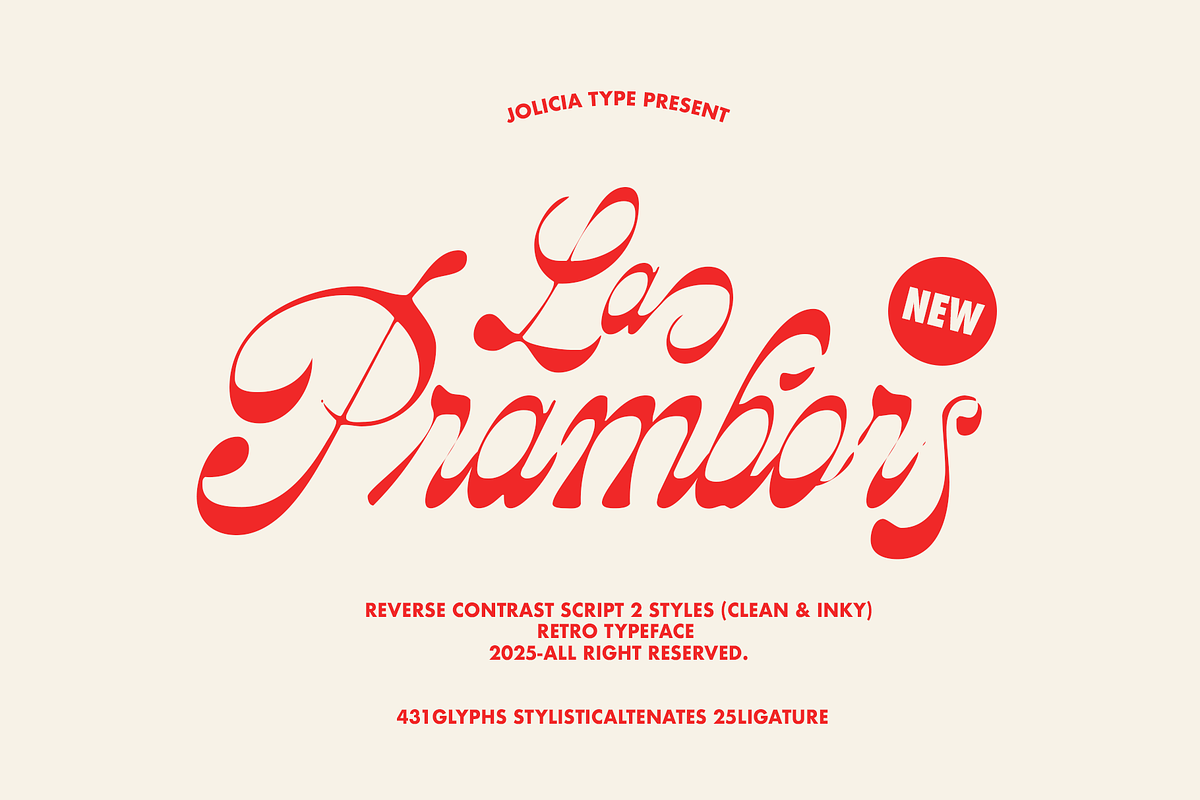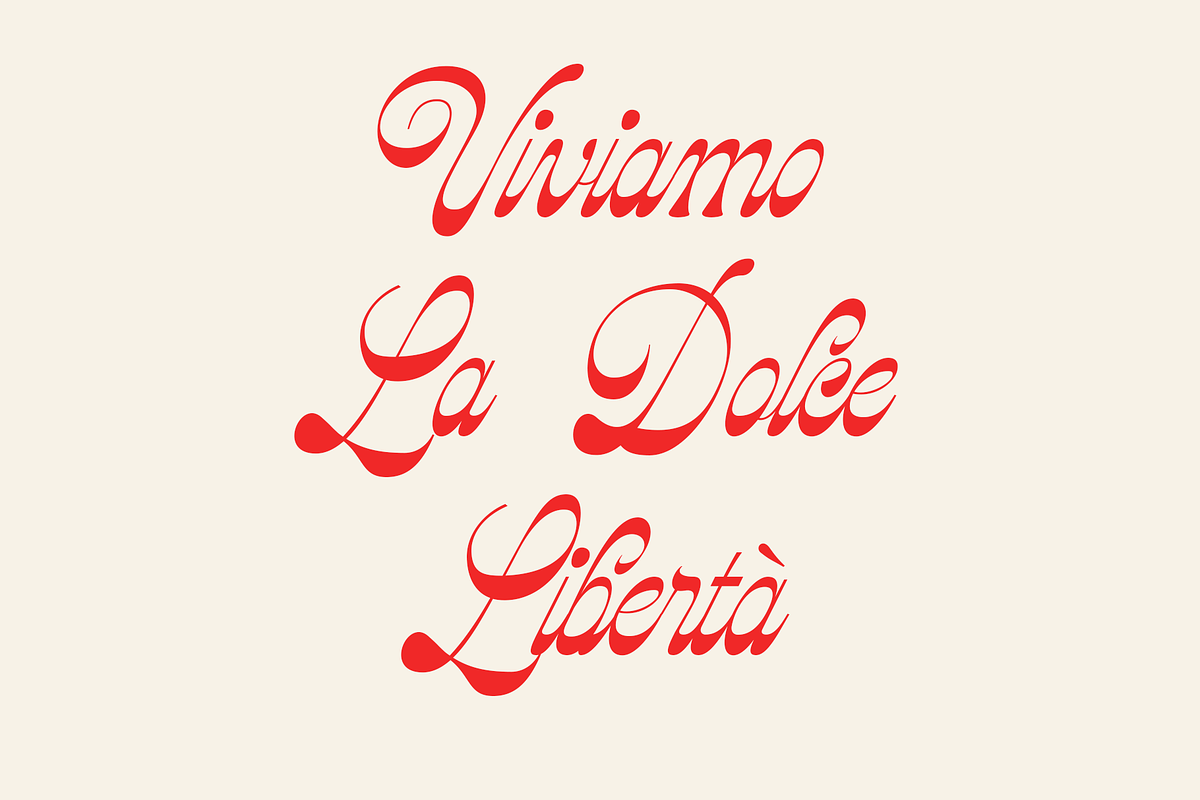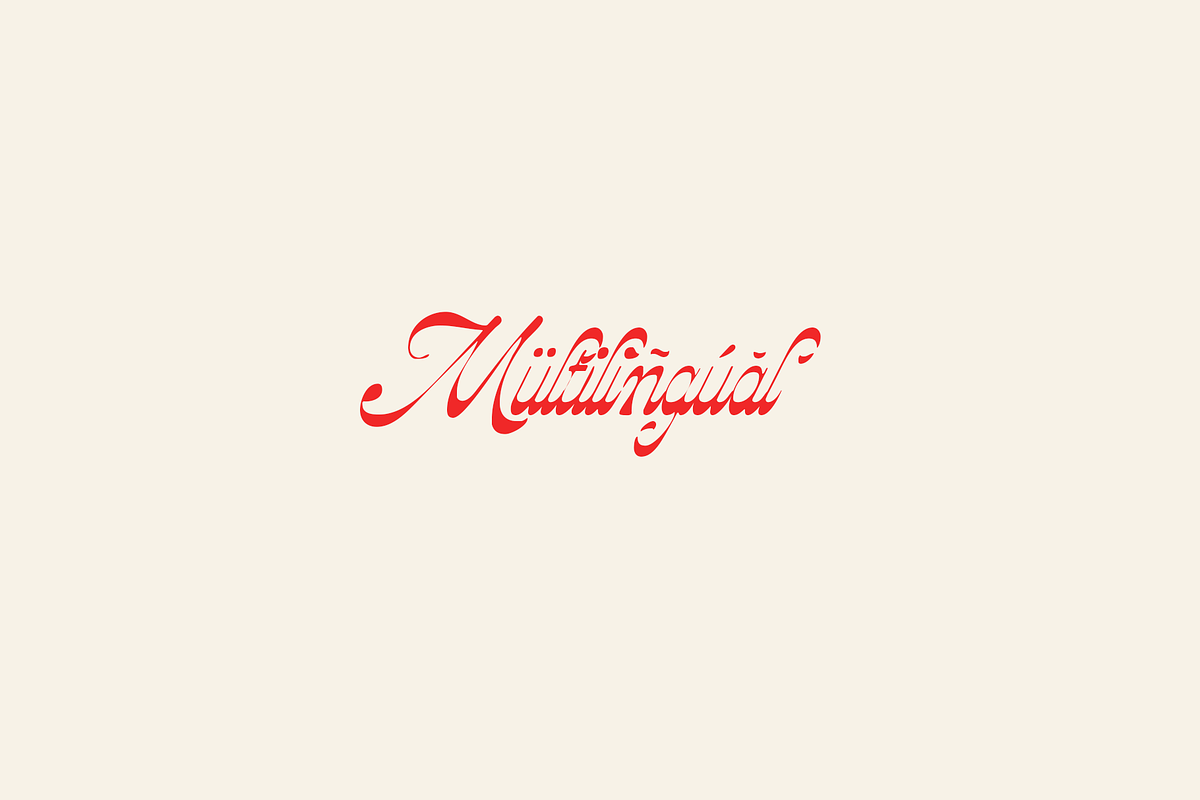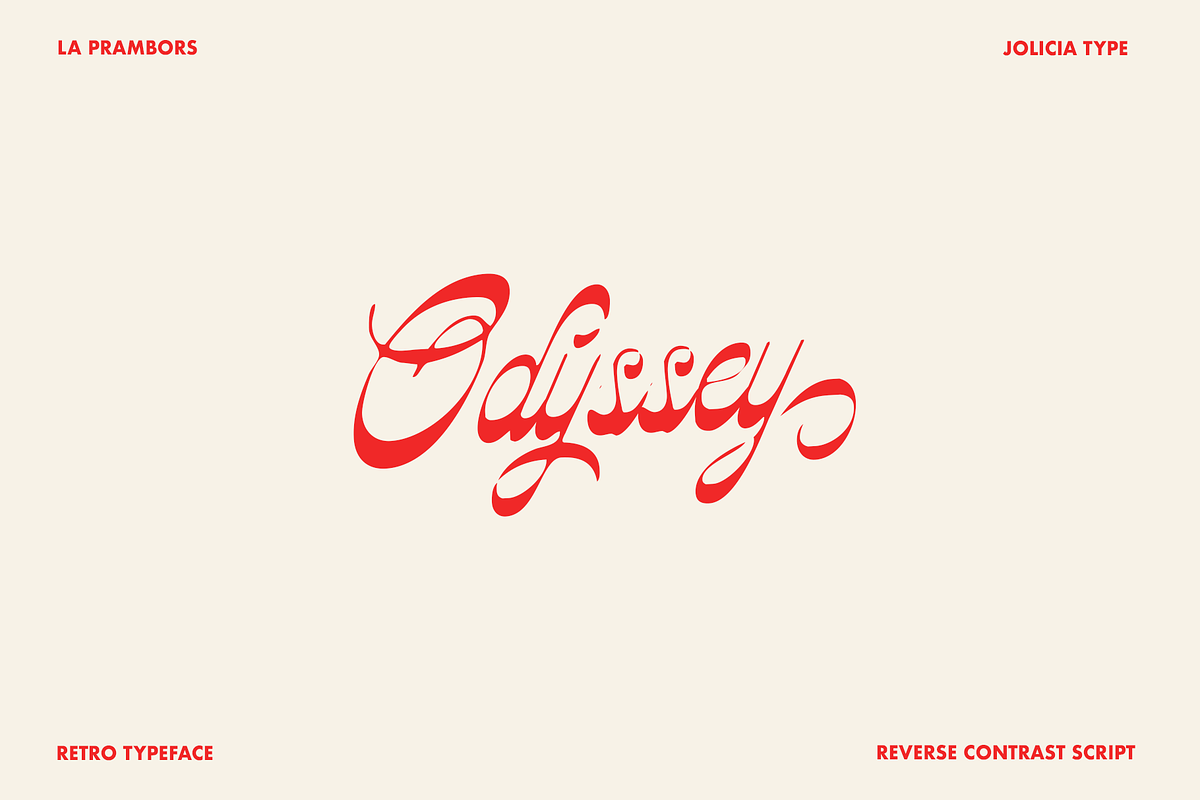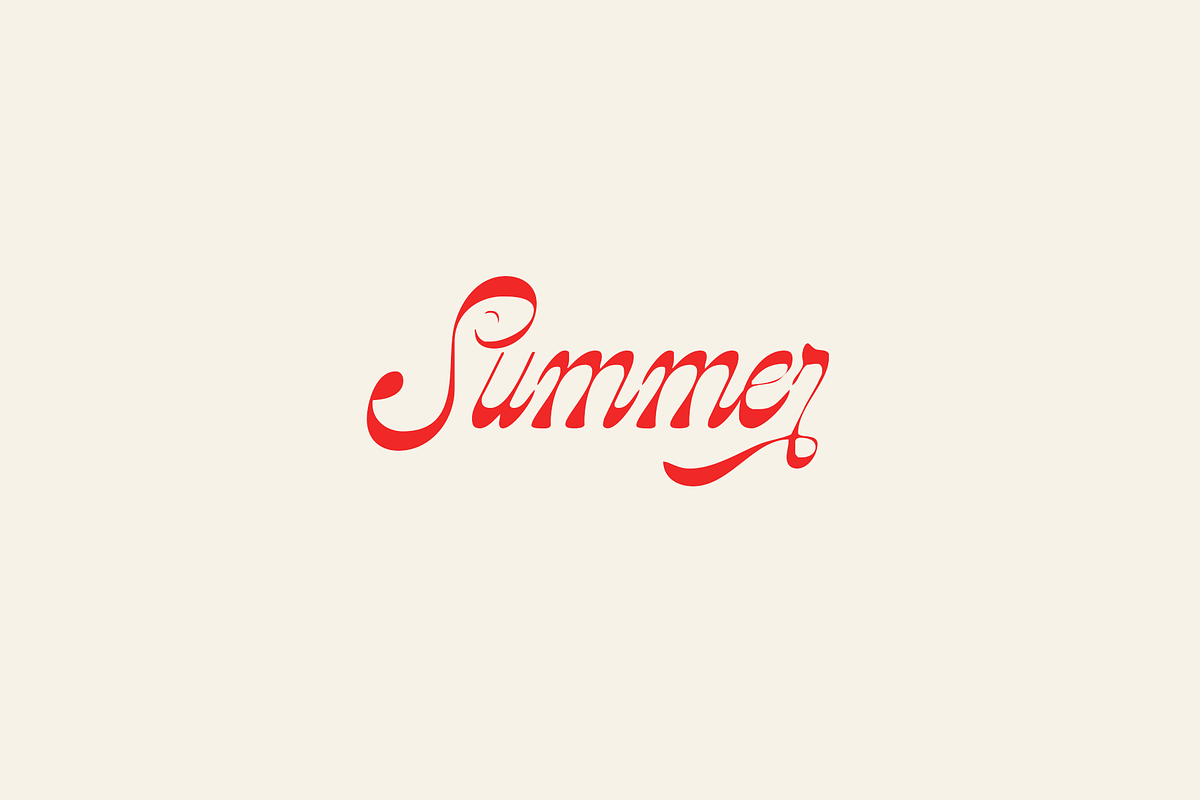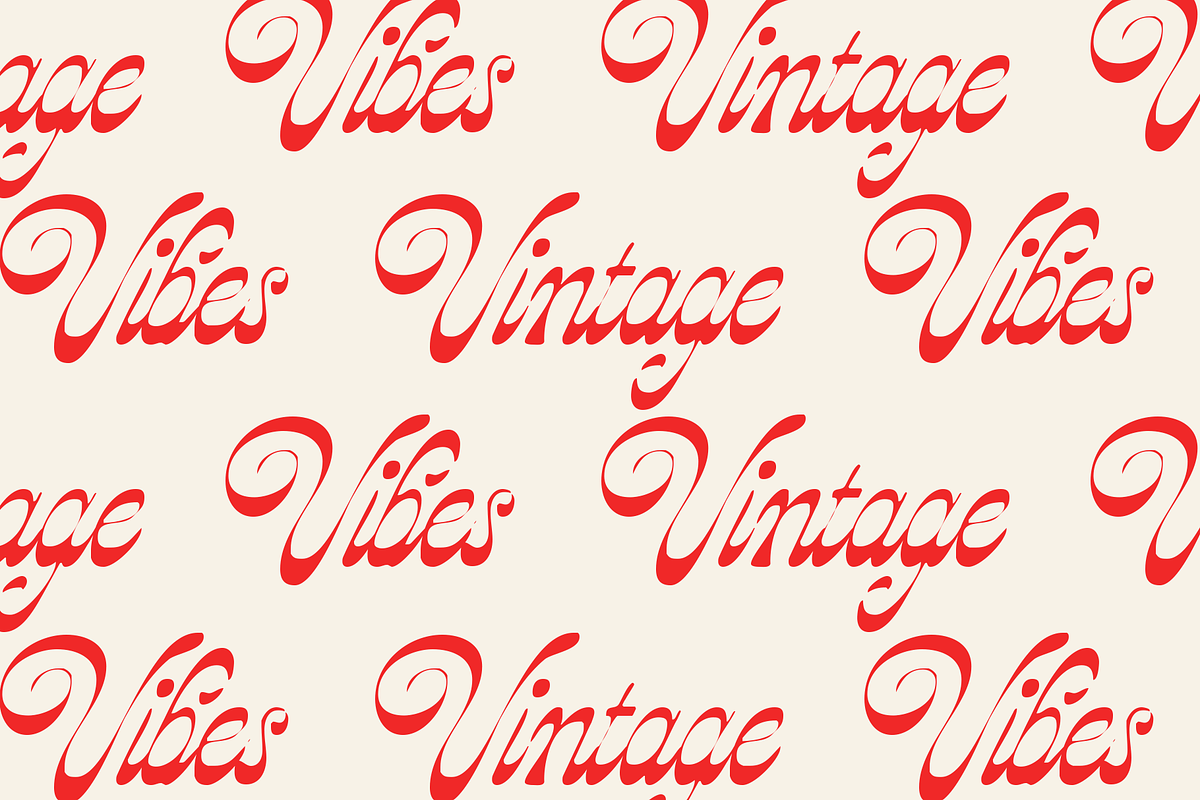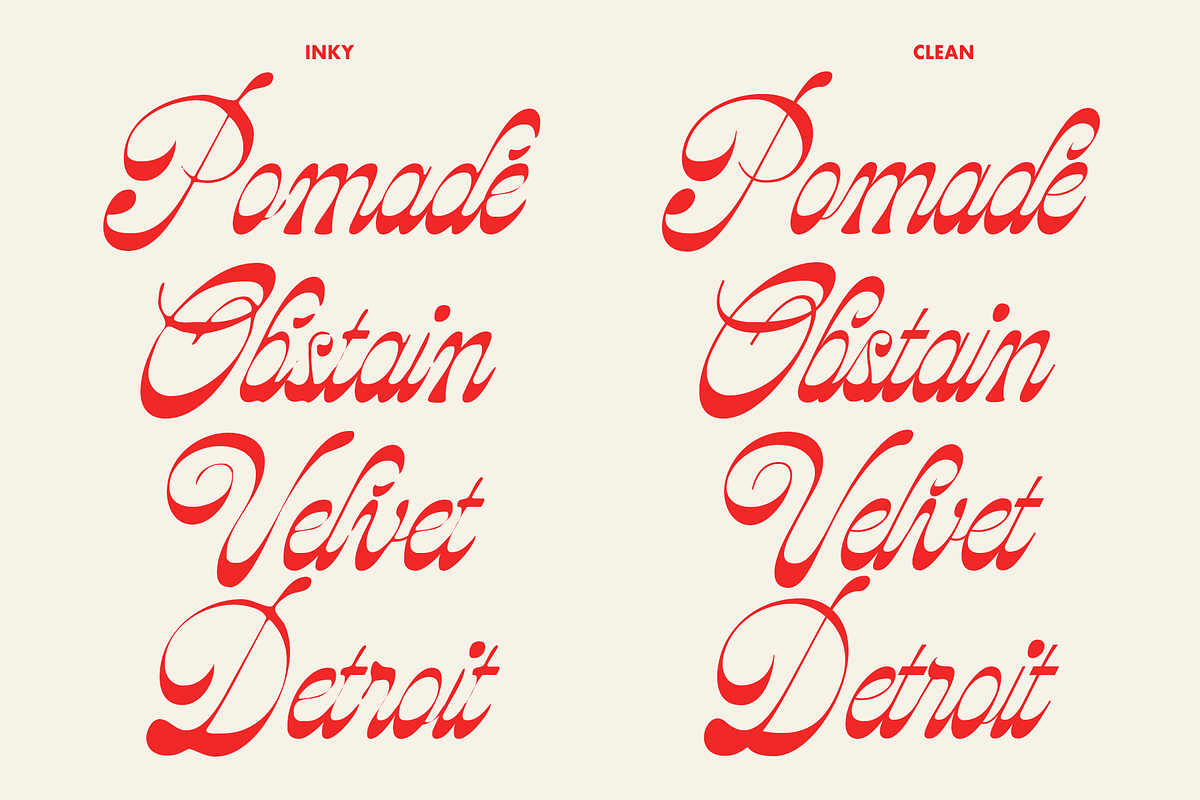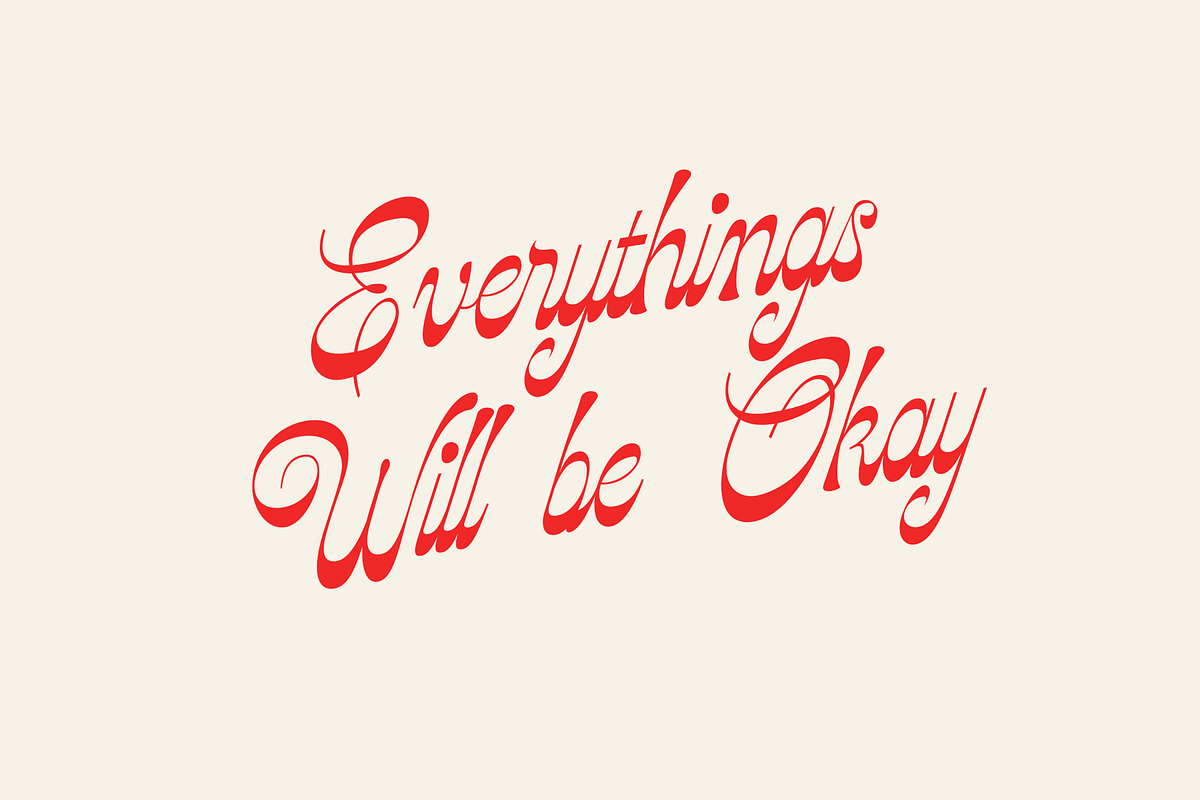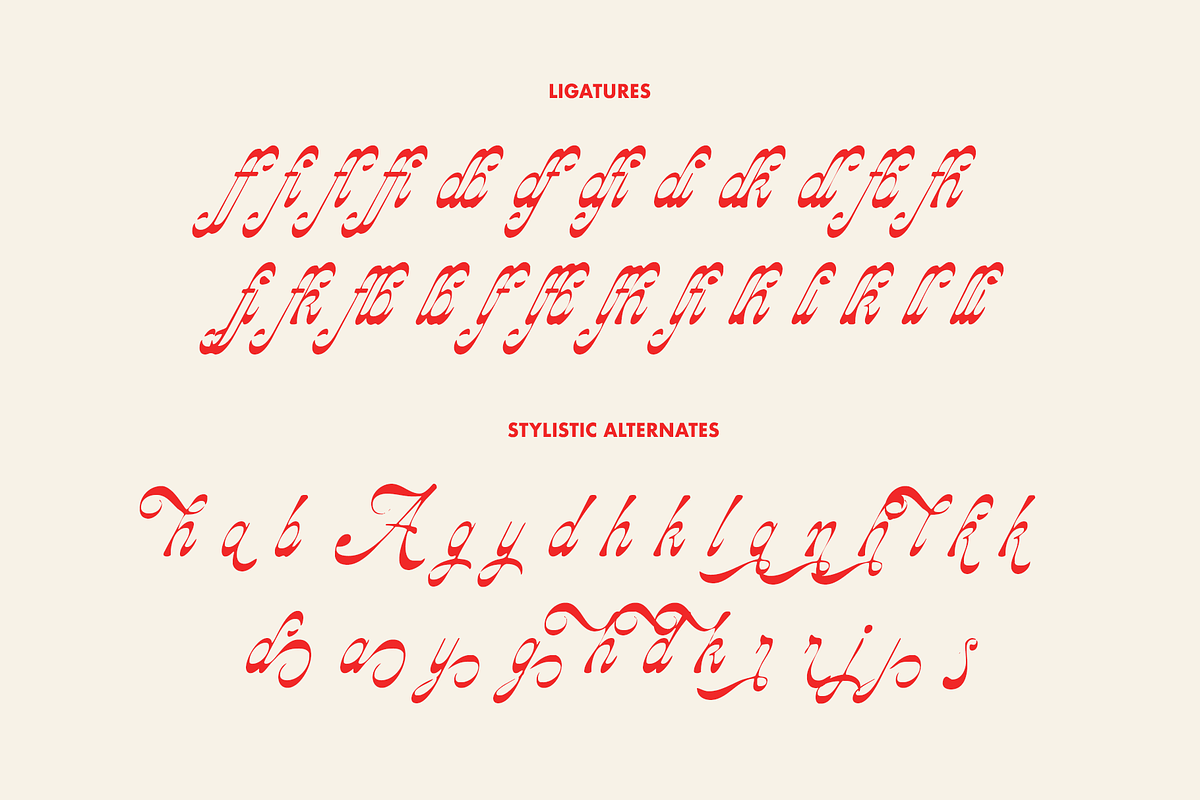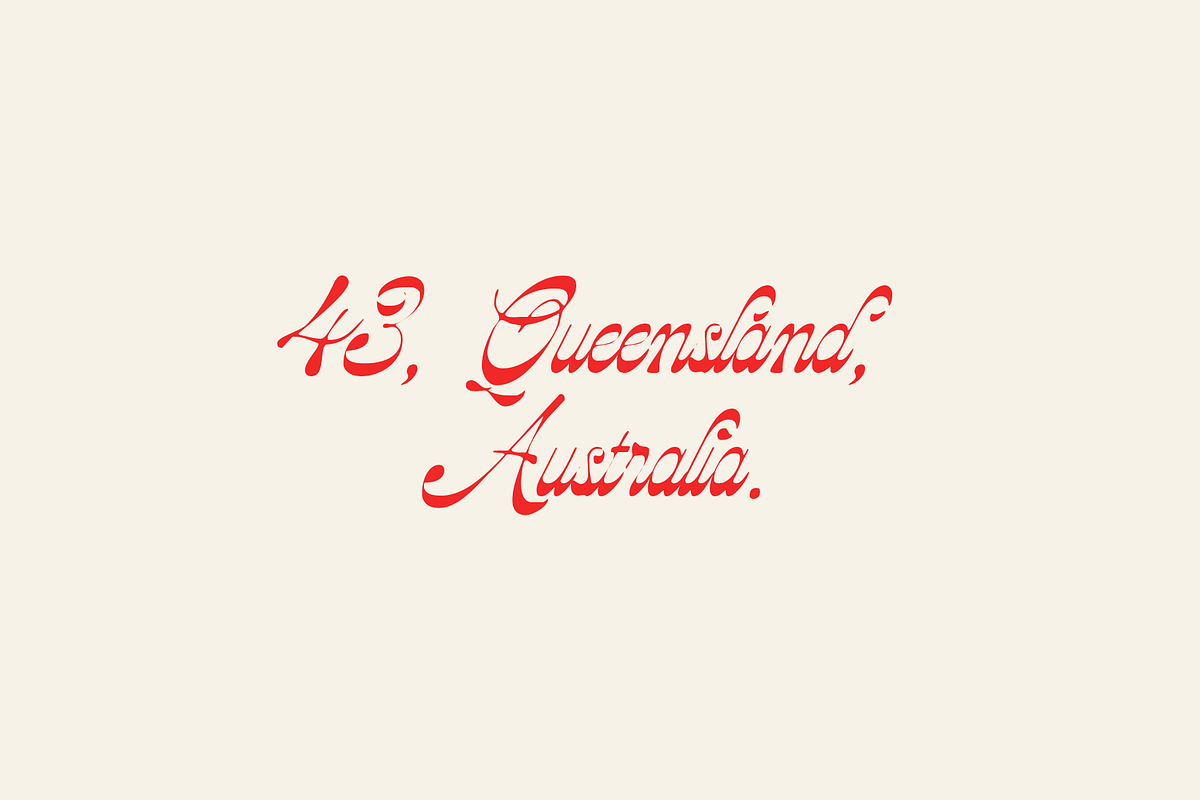
La Prambors | Retro Script
La Prambors – Retro Reverse Contrast Script La Prambors is a bold reverse contrast script font inspired by retro vibes and vintage charm. Its unique character blends playful curves with unexpected stroke weight, creating a strong personality that stands out in logos, packaging, posters, and nostalgic branding. This font comes in two delightful styles:
• Clean – for a crisp, smooth finish.
• Inky – with subtle texture for a handcrafted, analog feel.
Whether you’re crafting throwback visuals or giving modern designs a classic twist, La Prambors brings energy, character, and a hint of rebellion in every letter. Perfectly versatile for both digital and print projects.